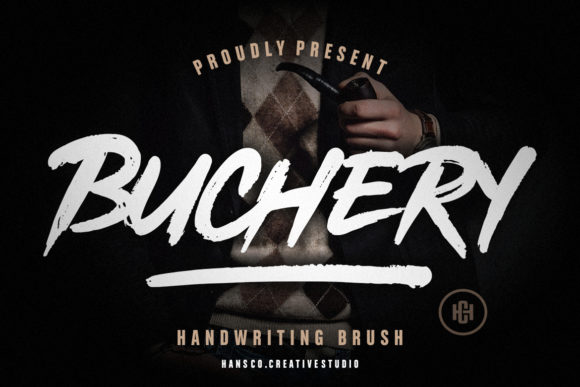
Buchery Font: A Handwritten Bold and Rough Display Font with Dry Brush Texture
In the world of typography, fonts play a crucial role in conveying the tone and personality of a design project. When it comes to creating a personalized appearance, a unique and eye-catching font can make all the difference. This is where Buchery Font comes in – a handwritten bold and rough display font with a dry brush texture that is perfect for designers looking to add a touch of character to their work.
What is Buchery Font?
Buchery Font is a carefully crafted display font that boasts a distinctive handwritten style with a bold and rough texture. The font features a dry brush texture that gives it a organic and earthy feel, making it perfect for designs that require a personalized and artistic touch.
With its unique texture and bold letterforms, Buchery Font is ideal for use in a variety of design projects, including logos, titles, headings, and any other application where a statement needs to be made.
Key Features of Buchery Font
- Handwritten style: Buchery Font features a beautiful handwritten style that gives it a personal and unique touch.
- Bold and rough texture: The font’s bold and rough texture makes it perfect for designs that require a statement piece.
- Dry brush texture: The dry brush texture gives the font an organic and earthy feel that sets it apart from other fonts.
- Multilingual support: Buchery Font supports multiple languages, making it a versatile choice for designers working on international projects.
Ideas for Using Buchery Font
Buchery Font is a versatile font that can be used in a variety of design projects. Here are some ideas to get you started:
- Logos and branding: Use Buchery Font to create a unique and memorable logo that stands out from the crowd.
- Posters and flyers: The font’s bold and eye-catching texture makes it perfect for use in posters and flyers.
- Social media graphics: Add a personal touch to your social media graphics with Buchery Font’s unique handwritten style.
- Packaging design: Use the font to add a touch of character to your packaging design and make your product stand out on store shelves.
Benefits of Using Buchery Font
So why choose Buchery Font for your design project? Here are just a few benefits of using this unique font:
- Unique and eye-catching: Buchery Font’s bold and rough texture makes it a standout choice for designers looking to create a memorable design.
- Personalized appearance: The font’s handwritten style and dry brush texture give it a personal and organic feel that is perfect for designs that require a touch of character.
- Versatile: Buchery Font can be used in a variety of design projects, from logos and branding to posters and social media graphics.
Tips and Tricks for Using Buchery Font
Here are a few tips and tricks for getting the most out of Buchery Font:
- Experiment with different colors: The font’s bold texture looks great in a variety of colors, so don’t be afraid to experiment and find the perfect hue for your design.
- Use it sparingly: While Buchery Font is a beautiful font, it can be overwhelming if used too much. Use it sparingly to add a touch of character to your design.
- Pair it with other fonts: Buchery Font pairs well with a variety of other fonts, so don’t be afraid to experiment and find the perfect combination for your design.
In conclusion, Buchery Font is a unique and eye-catching display font that is perfect for designers looking to add a touch of character to their work. With its handwritten bold and rough texture, dry brush texture, and multilingual support, this font is versatile and easy to use.
Whether you’re working on a logo, poster, social media graphic, or packaging design, Buchery Font is a great choice for any design project that requires a personalized appearance.